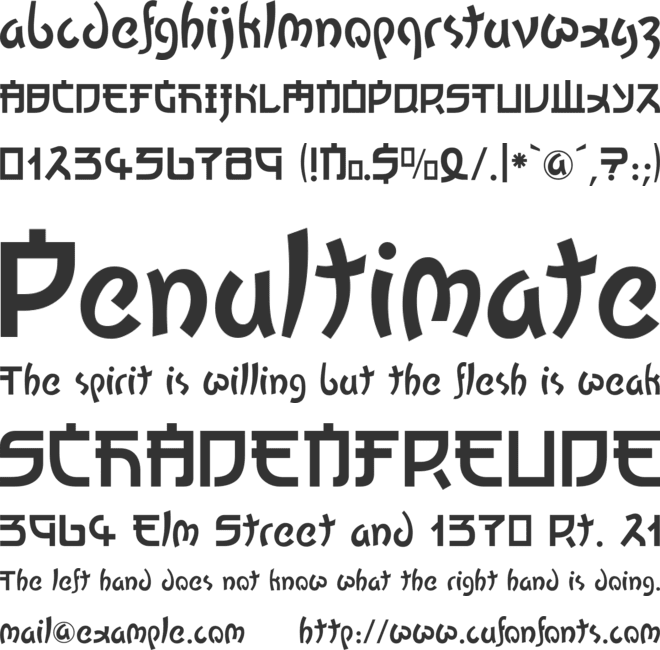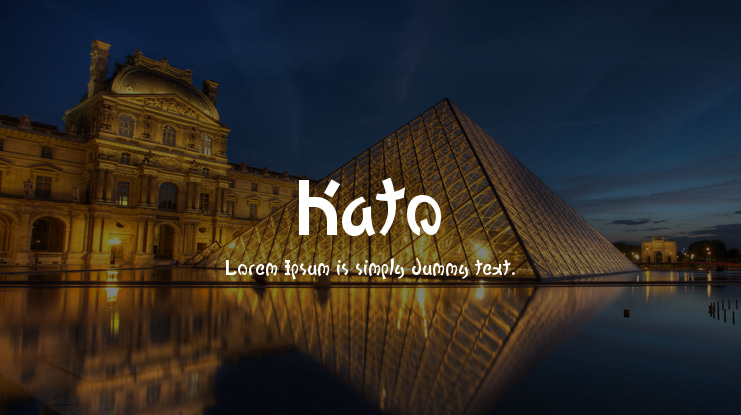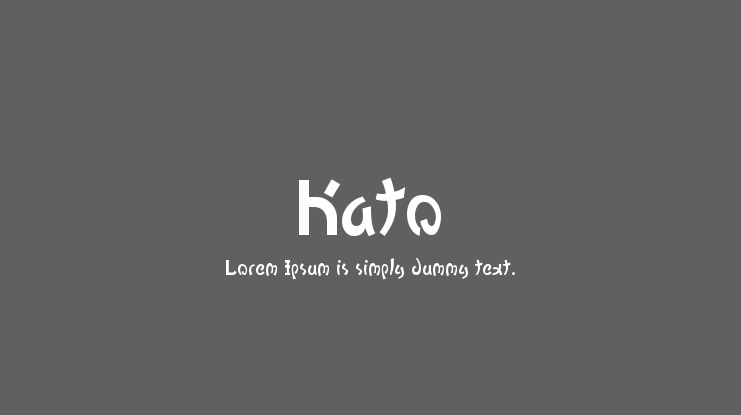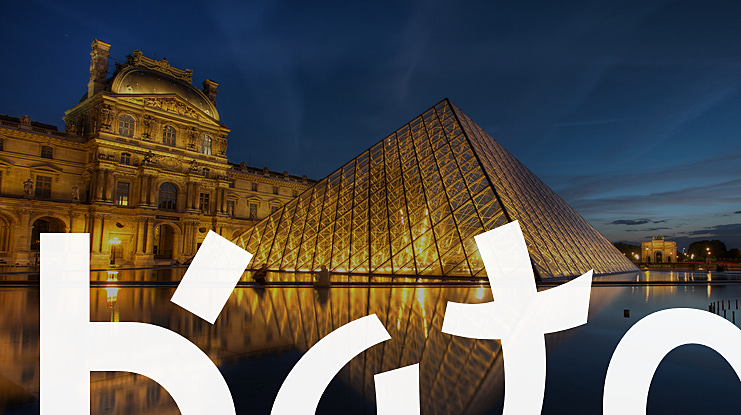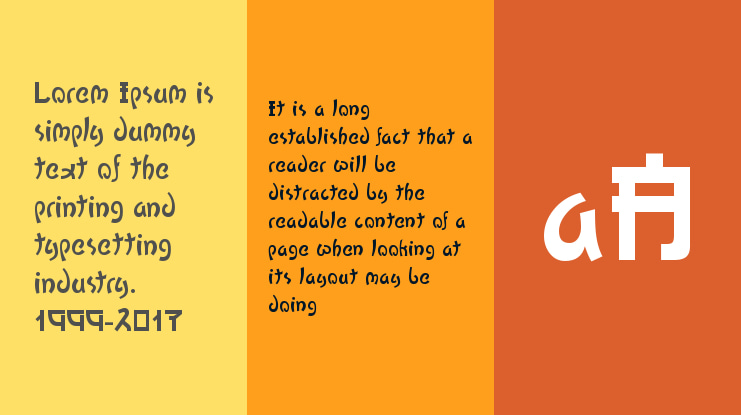
Kato Font Family
Originally conceived as two separate Japan-inspired fonts, the upper and lower cases are designed for use separately, but can be mixed when logic and proportion have fallen sloppy dead. Named after Inspector Clouseau’s manservant in the Pink Panther movies.